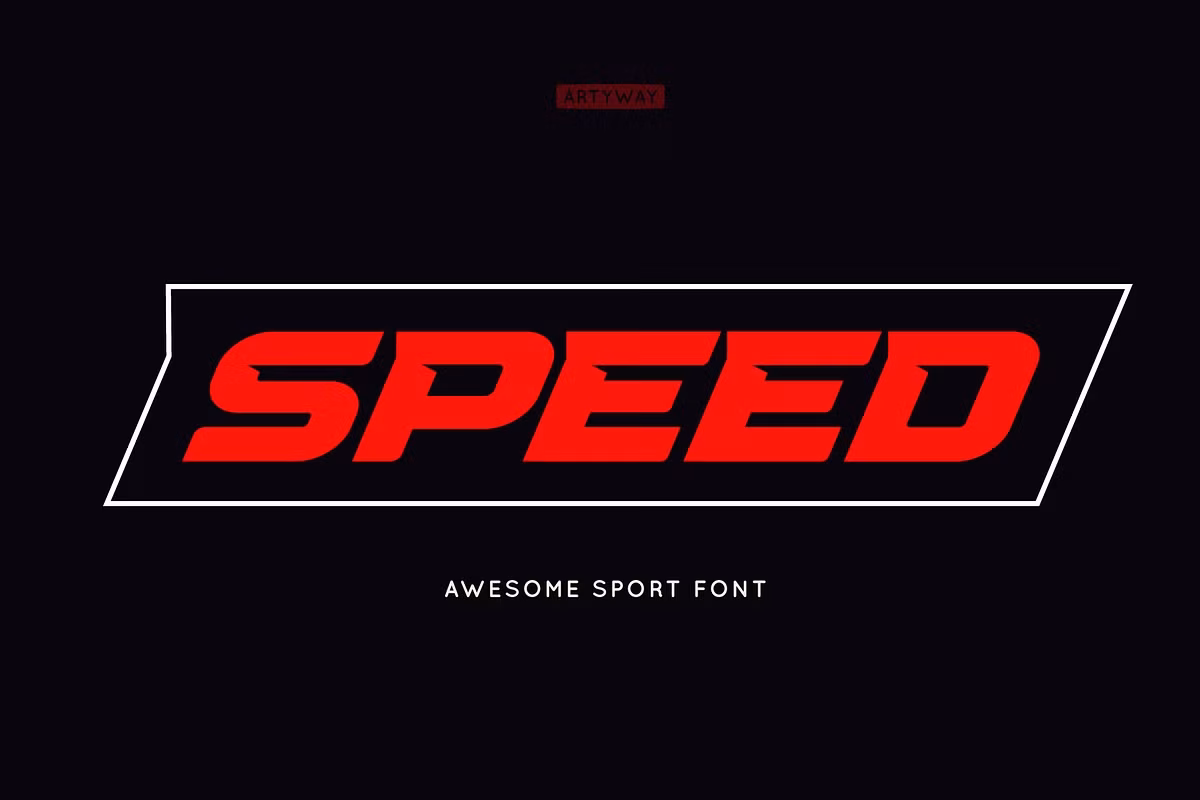
Headline Speed Font Free Download is a dynamic and bold display typeface designed to deliver impact and energy at first glance. Please note: you must purchase this font for commercial use, but you can test it through a free download. With its sharp edges, slanted angles, and fast-paced aesthetic, Headline Speed is perfect for sports branding, racing posters, action-packed headlines, tech advertisements, and energetic social media content.
Built for speed and power, this font captures the essence of motion and adrenaline—ideal for projects that need to stand out with urgency and strength. Whether you're crafting a dynamic logo or an attention-grabbing title, Headline Speed Font Free Download brings intensity and clarity to your design. Fully compatible with Adobe Illustrator, Photoshop, Canva, and more. Download it today for personal use and give your typography the velocity it needs with Headline Speed.